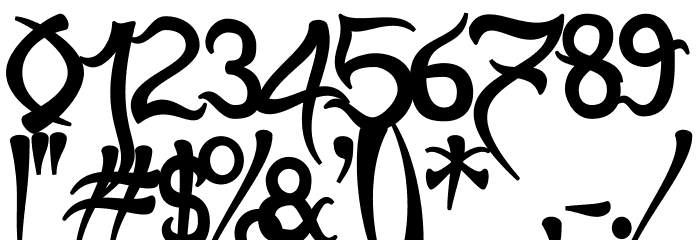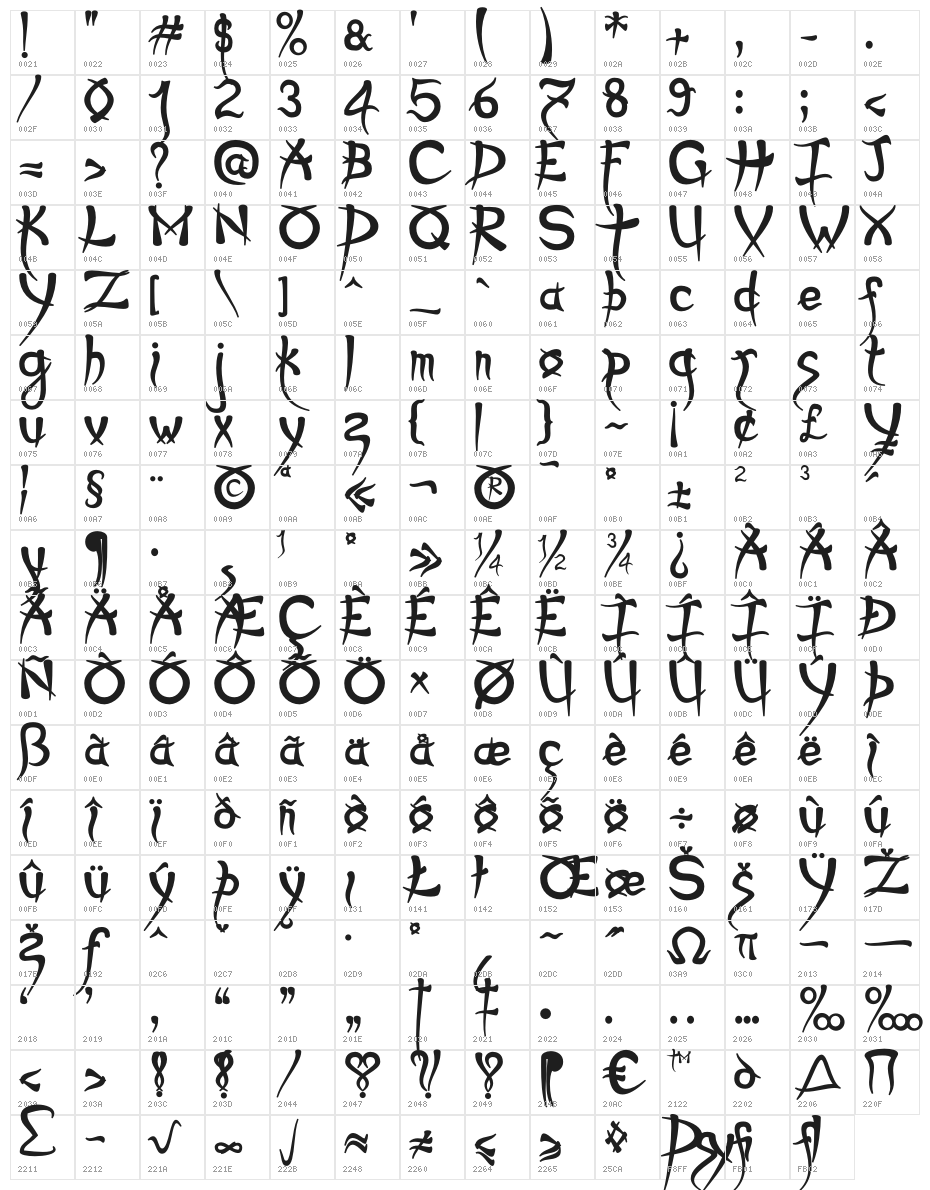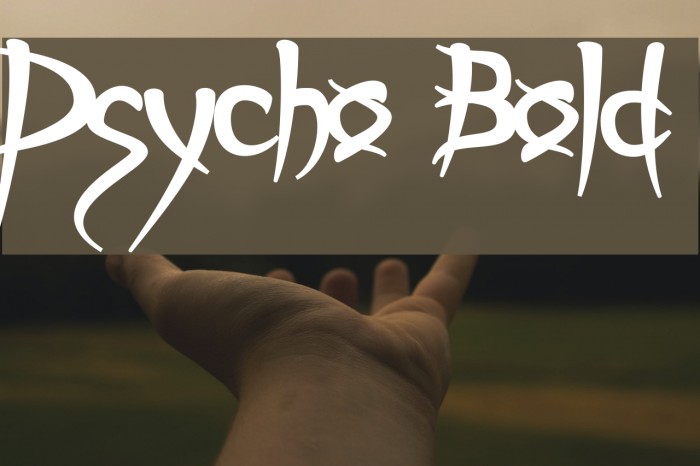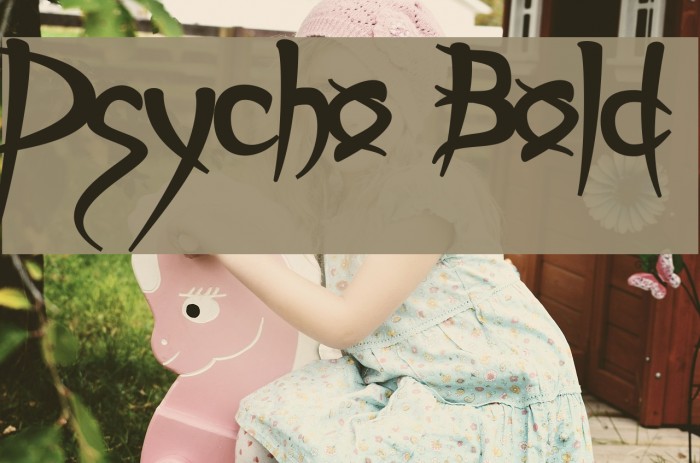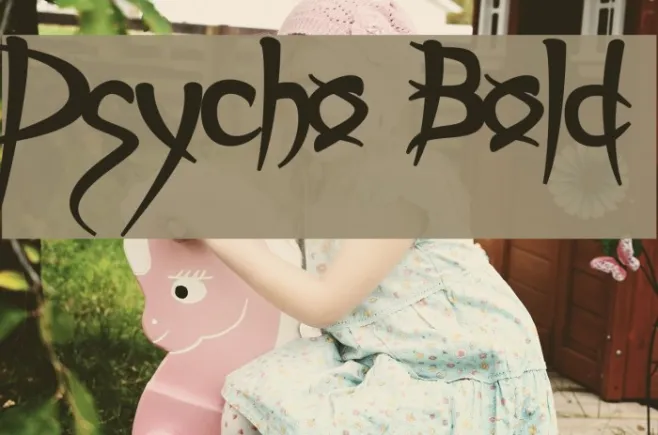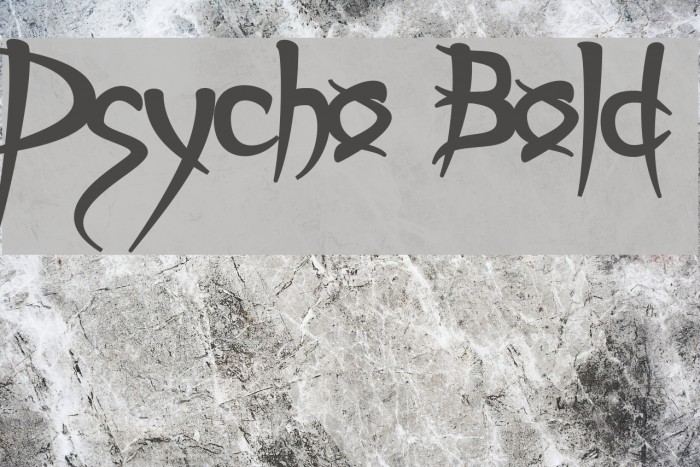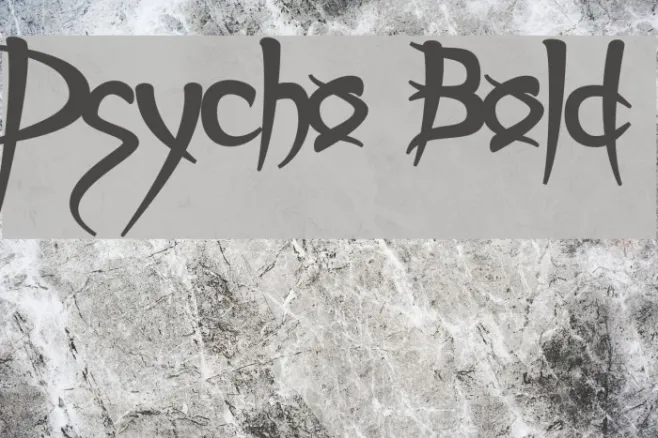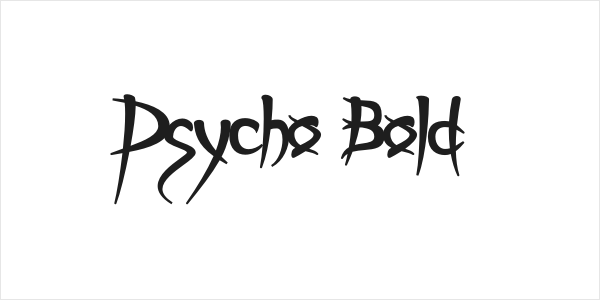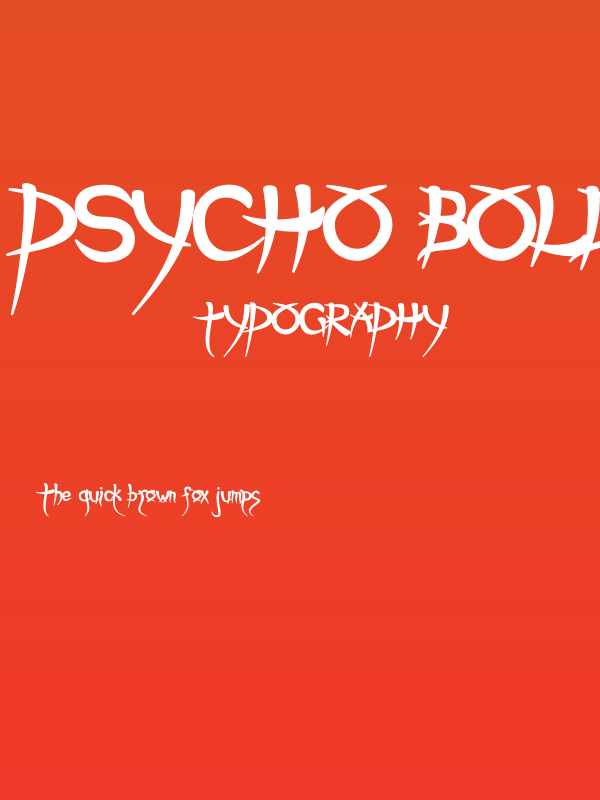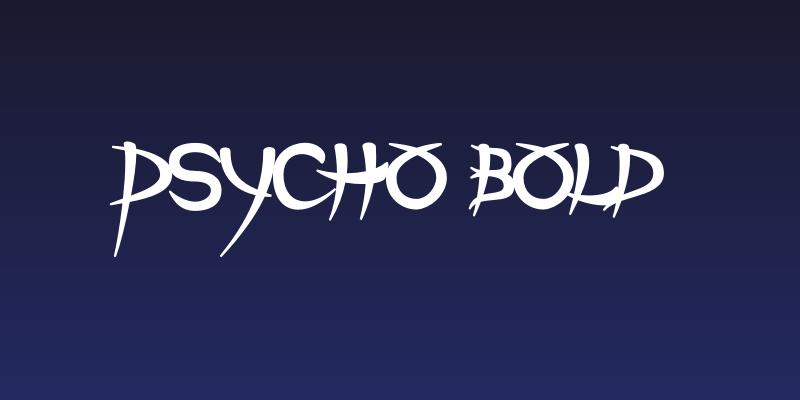
Psycho Bold Font
Psycho Bold Description
This font features a bold and expressive style with a chaotic and energetic appearance. The letters are characterized by sharp, angular lines and exaggerated curves, giving them a dynamic and edgy feel. The uppercase and lowercase letters maintain a consistent style, with a playful yet aggressive look. The numbers and special characters follow the same design principles, ensuring a cohesive appearance across all glyphs. This font is ideal for projects that require a strong visual impact and a sense of movement or excitement.
| Overall Style | Modern, Edgy |
| Proposed Projects | Ideal for music album covers, horror movie posters, edgy branding, and street art designs. |